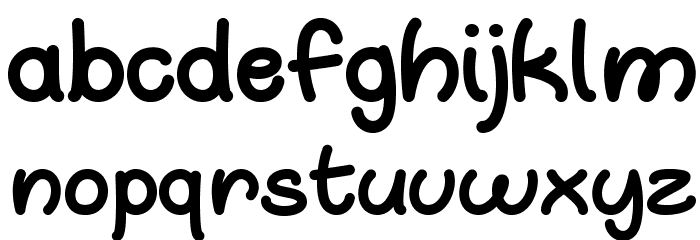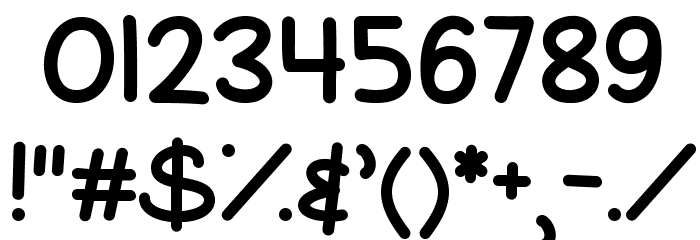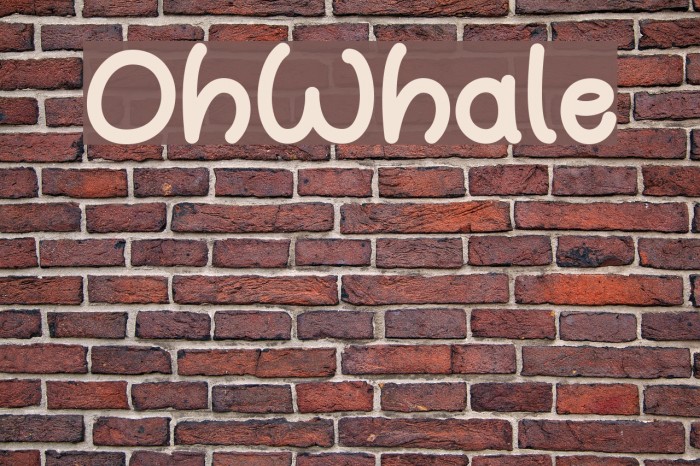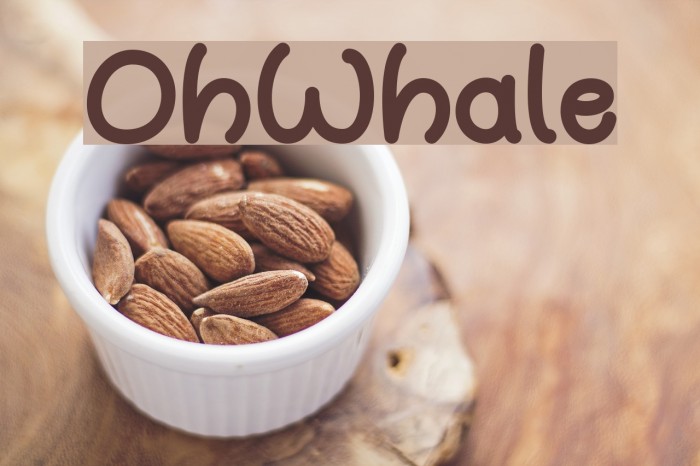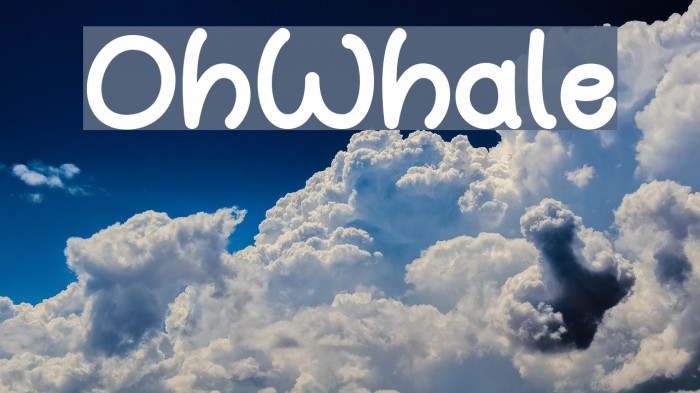
OhWhale Font
This playful and whimsical font features rounded, bold characters with a hand-drawn appearance. The letters have a consistent thickness, giving them a friendly and approachable look. The uppercase and lowercase letters are well-balanced, with a slight slant that adds to the casual feel. The numbers and special characters maintain the same playful style, making the font versatile for various uses. Its smooth curves and lack of sharp edges contribute to its inviting and informal aesthetic, making it suitable for projects that require a touch of fun and creativity.
A playful, hand-drawn font with rounded, bold characters and a whimsical style.
- Proposed Projects: Ideal for children's books, playful branding, greeting cards, and casual invitations.
- Overall Style: Playful
- Use Case: Logos, Headlines, Informal Text